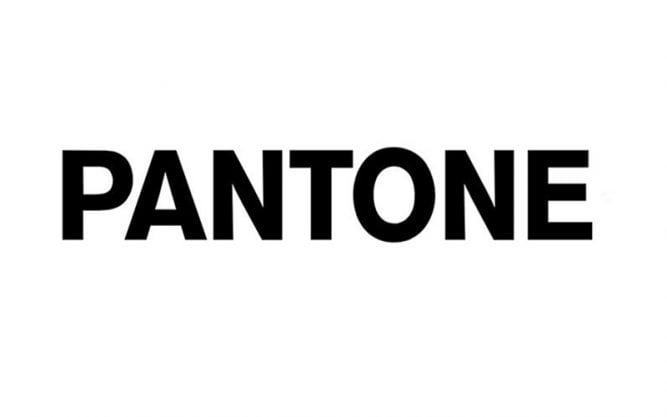
Pantone FontĀ is a bold sans serif typeface made with love! It can make your typography more peaceful and kind. Use it anywhere like posters, flyers, banners, headlines, and more.
Basically, it is a logo font that we have seen in the Pantone logo. Its limited liability company was started in 1950. Headquartered in New Jersey, USA, it is known for its Pantone Matching System (PMS).
Therefore, due to its popularity, various designers want to work closely with its logo font. Because it’s really a professional font that can instantly create a decent and perfect design.
The font used in the Pantone logo is actually a sans serif name called Helvetica New Font. That was designed by Mr. Max Miedinger and Mr. Edouard Hoffmann.
Pantone Font
| Font Name: | Pantone Font |
| Style: | Basic, Sans-serif, Typeface |
| Font Designer: | Mr. Max Miedinger and Mr Edouard Hoffmann |
Every character is fully experienced and created over time to create just the perfect setting. That’s why you can use it with large text and another font family.
Helvetica Neue Font is available in 109 styles, which is truly a great amount by itself. And each style has 266 characters including Basic Latin, General Punctuation, and Currency symbols.
You can use this typeface for headlines, creating book covers, unique emblems, product designs, special event cards, game graphics, posters, web development, app designing, app development, cv templates, and many other places.